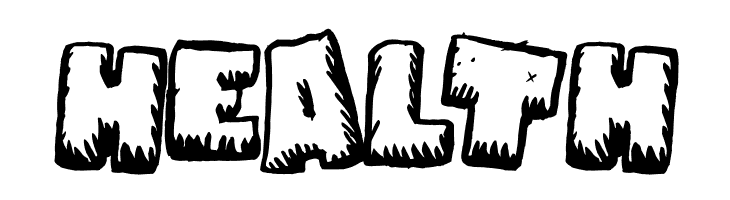
• Nature Regular
A playful decorative font featuring unique animal face illustrations for each character.
• Nature Violces
A playful and elegant handwritten font with flowing, interconnected letterforms.
• Naturealo
( Fonts by Mozyen Studio )
A flowing, cursive script font with a natural, handwritten style.
• Naturena
( Fonts by Letterayu )
• Natusha Bayor
A bold, expressive handwritten font with dynamic curves and fluid strokes.
• natwooddraws
( Fonts by Natalie Wood )
A playful, handwritten font with rounded, casual letterforms.
• Nauert Regular
A bold, decorative font with a three-dimensional outline effect.
• Nauert-Italic
An elegant serif font with an italic slant and high contrast strokes.
• Naughts BRK
• Naughty Cartoons
A bold, cartoonish font with a playful, hand-drawn style.